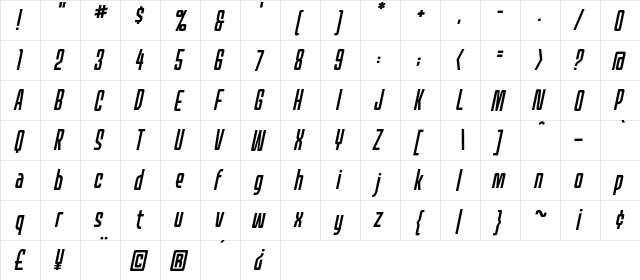
MechEffects One LC BB Italic
| Foundry | Nate Piekos. Blambot.com |
| Designer | Nate Piekos |
Design Context for MechEffects One LC BB Typeface
MechEffects One LC BB takes a measured approach to typography — its balanced proportions and neutral character make it a reliable workhorse for both digital and print work. Its italic angle brings a sense of urgency and motion to the letterforms.
Pro Tip: Use MechEffects One LC BB for emphasis, pull quotes, and subheadings where its slanted energy can add rhythm to the layout.